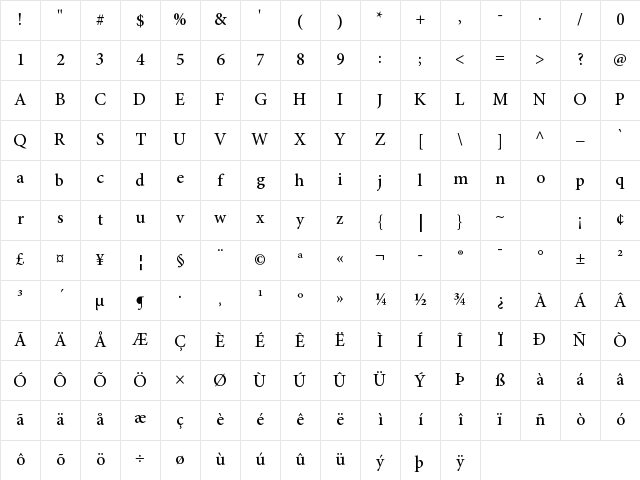
Adobe Balochi Regular
Foundry: Tiro Typeworks for Adobe Systems Incorporated.
Designer: Tim Holloway (Arabic) and Robert Slimbach (Latin)
Design Context for Adobe Balochi
Adobe Balochi is a composed and adaptable typeface that performs quietly and consistently across a wide range of design contexts.
Who designed the Adobe Balochi Regular font?
This font was published by Tiro Typeworks for Adobe Systems Incorporated.. Check the technical specs section for copyright and designer details.